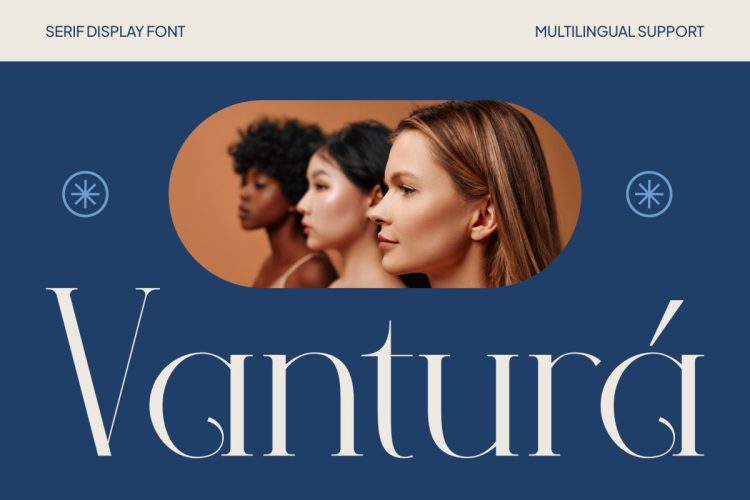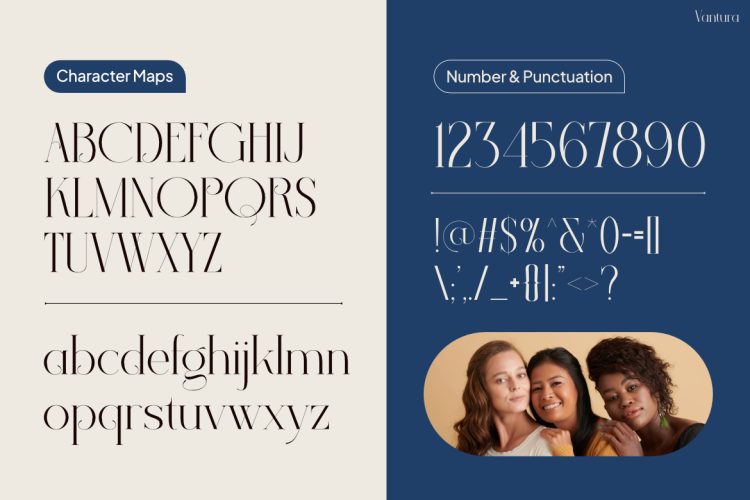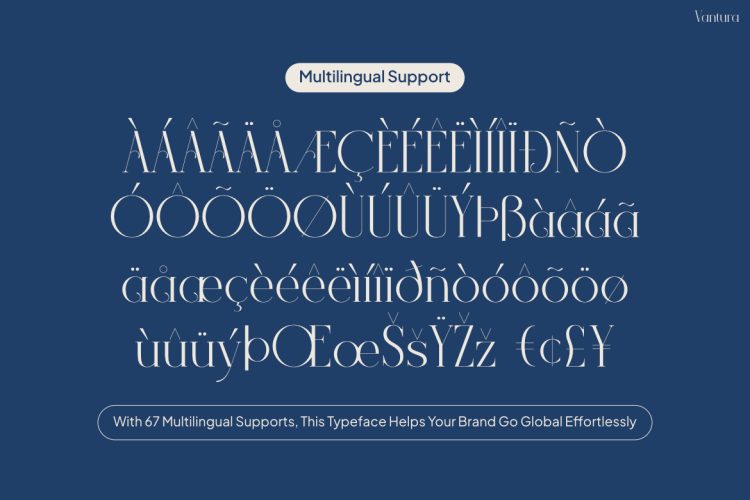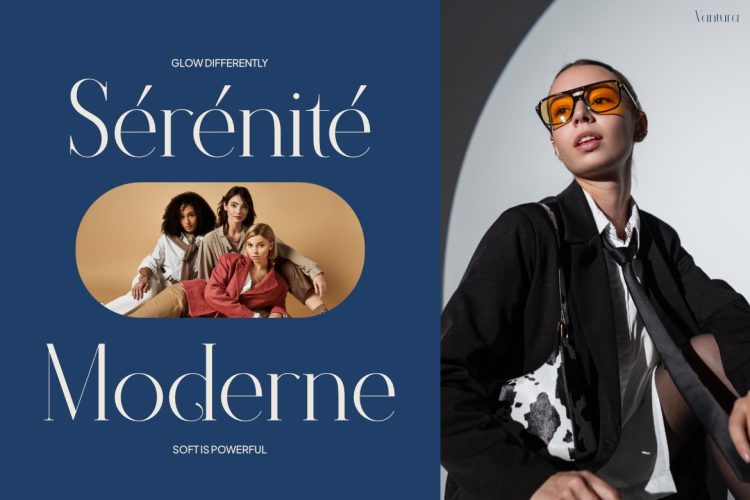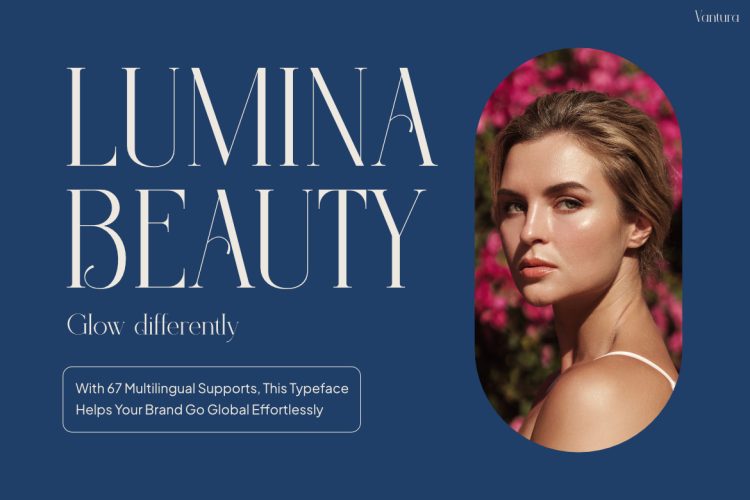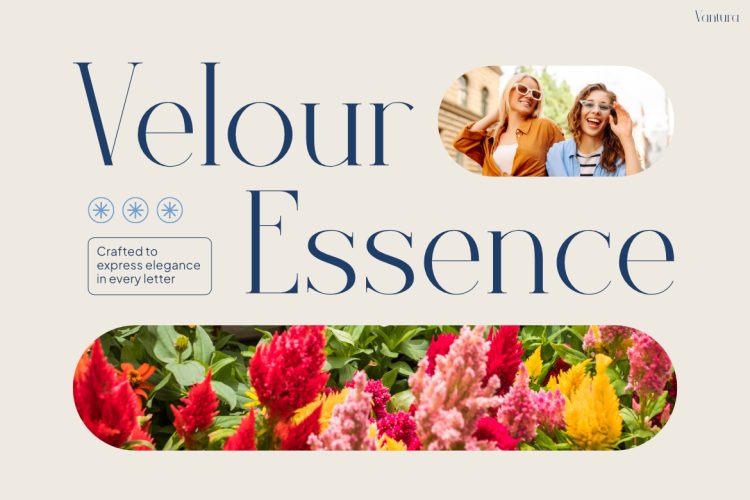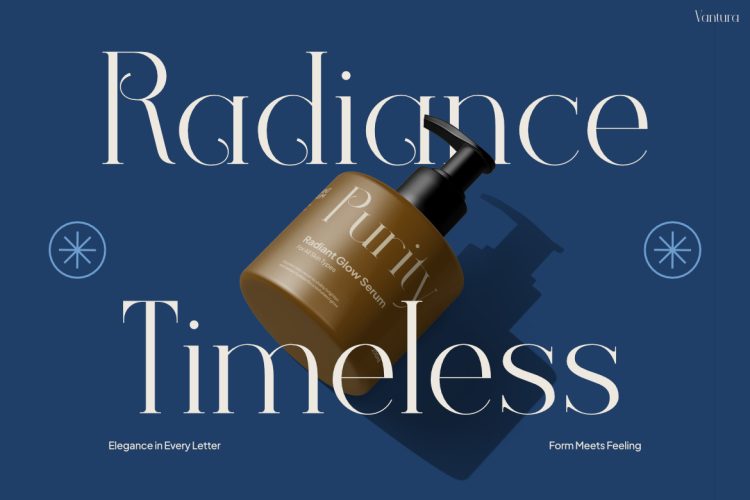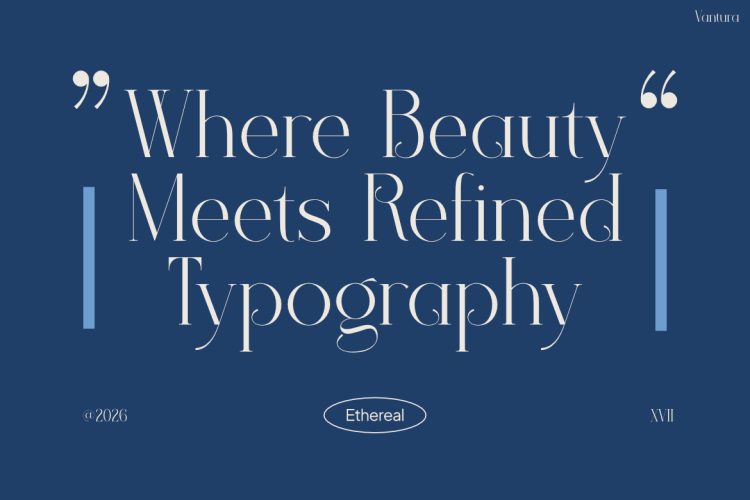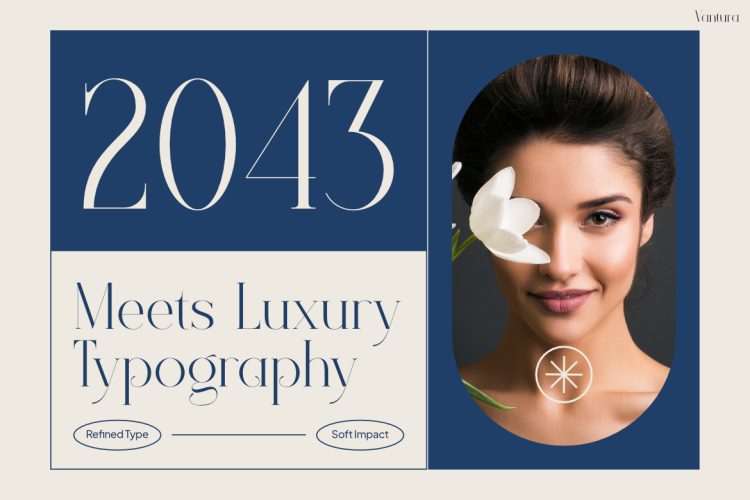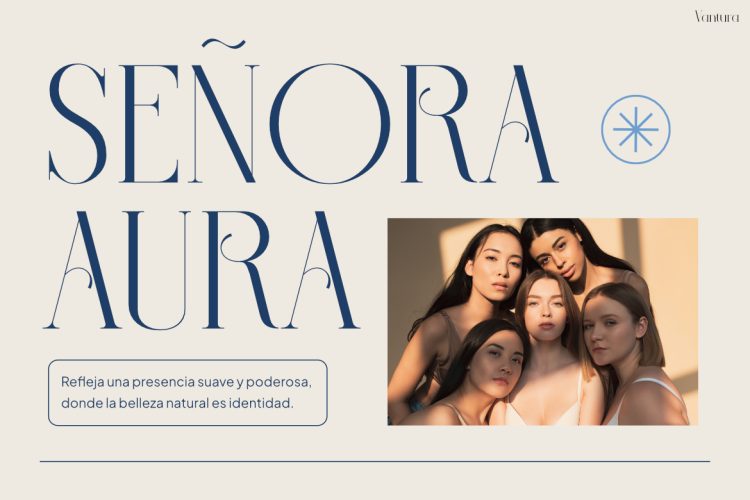
Instagram Font Vantura โ Elegant Luxury Serif for Modern Beauty Branding
Instagram Font Vantura brings a refined, high-fashion aesthetic that elevates your visuals with elegance and clarity. Its delicate contrast and graceful curves create a look that feels both modern and timeless. Each letter is crafted with precision, so the font looks clean and stylish in every use. Moreover, the balanced structure makes it easy to read while still feeling premium. Because of its sleek serif style, it naturally stands out in headlines and branding. It also supports 67 languages, making it perfect for global design projects.
Instagram Font Vantura is built for creators who want a luxury and feminine touch. Its elegant serif style works well for both digital and print designs. You can use it for Instagram posts, logos, packaging, or editorial layouts. In addition, it pairs beautifully with soft colors and clean compositions. This helps your designs feel more curated and high-end. The spacing is also optimized, so your text stays readable and polished. Overall, it gives your work a strong and sophisticated visual identity.
This font is perfect for beauty brands, fashion designers, and content creators. It suits skincare labels, cosmetic packaging, and social media visuals. It also works well for wedding designs and magazine covers. Furthermore, agencies and freelancers can use it for premium client projects. If you want a modern yet elegant look, this font fits perfectly.